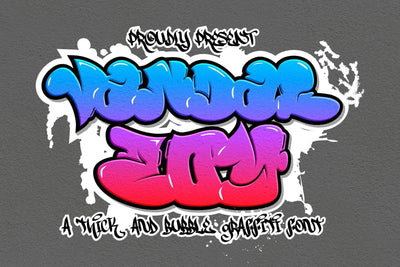
Vandal Zoy - Thick And Bubble Graffiti Font
Vandal Zoy is a Thick font with a graffiti style and bubble looks. It will elevate a wide range of design projects to the highest level, be it branding, headings, wedding designs, invitations, signatures, logotype, wall art illustration, apparel, labels, and much more!
- Graffiti Characters looks